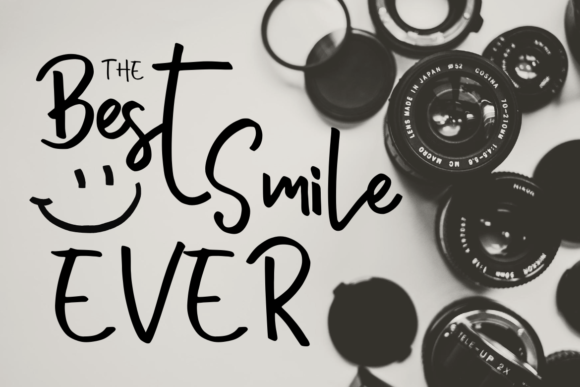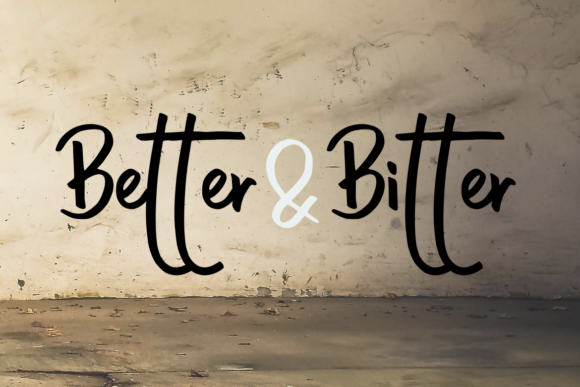
Introducing Almond Font: Elevate Your Designs with a Stunning Handwritten Style
Are you on the hunt for a font that can instantly elevate your designs and give them a professional touch? Look no further than Almond Font, a beautiful handwritten font that is perfect for a wide range of applications. From logos and book covers to product presentations and more, Almond Font is the ideal choice for designers and crafters looking to add a personal touch to their work.
What Makes Almond Font So Special?
Almond Font is a stunning handwritten font that boasts a unique and elegant style. Its flowing lines and curves give it a sophisticated look that is sure to capture the attention of your audience. Whether you’re working on a logo, a book cover, or a product presentation, Almond Font is the perfect choice for adding a touch of personality and style to your design.
One of the things that sets Almond Font apart from other fonts is its versatility. It can be used in a wide range of applications, from formal and professional designs to more casual and creative projects. This makes it an excellent choice for designers and crafters who need a font that can adapt to different styles and themes.
Key Features of Almond Font
So, what makes Almond Font so special? Here are just a few of its key features:
- Handwritten style: Almond Font has a beautiful handwritten style that gives it a personal and unique touch.
- Elegant and sophisticated: The font’s flowing lines and curves give it an elegant and sophisticated look that is sure to impress.
- Versatile: Almond Font can be used in a wide range of applications, from logos and book covers to product presentations and more.
- Easy to read: Despite its elegant style, Almond Font is easy to read and understand, making it perfect for designs that require a clear and concise message.
How to Use Almond Font in Your Designs
Using Almond Font in your designs is easy. Here are just a few ideas to get you started:
- Logos: Almond Font is perfect for creating unique and memorable logos that stand out from the crowd.
- Book covers: The font’s elegant style makes it an excellent choice for book covers, particularly for romance, fiction, and non-fiction books.
- Product presentations: Almond Font can add a touch of sophistication and style to product presentations, making them more engaging and effective.
- Social media graphics: The font’s versatility makes it perfect for social media graphics, including Facebook posts, Instagram stories, and more.
Why Choose Almond Font?
So, why choose Almond Font over other fonts? Here are just a few reasons:
- Unique style: Almond Font has a unique and elegant style that sets it apart from other fonts.
- High-quality design: The font is designed to high standards, ensuring that it looks great in any design.
In conclusion, Almond Font is a stunning handwritten font that is perfect for designers and crafters looking to add a personal touch to their work. Its elegant style, versatility, and ease of use make it an excellent choice for a wide range of applications. Whether you’re working on a logo, book cover, product presentation, or social media graphic, Almond Font is the ideal choice for elevating your designs and making them stand out from the crowd.